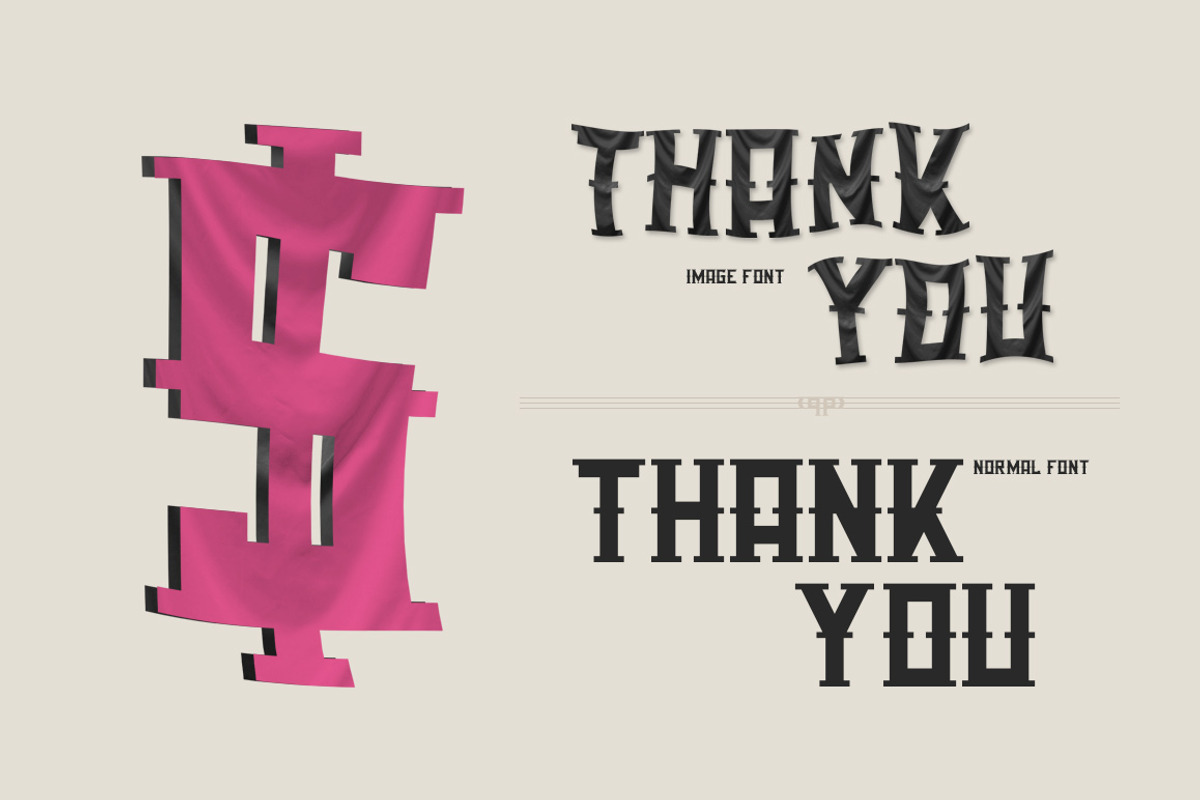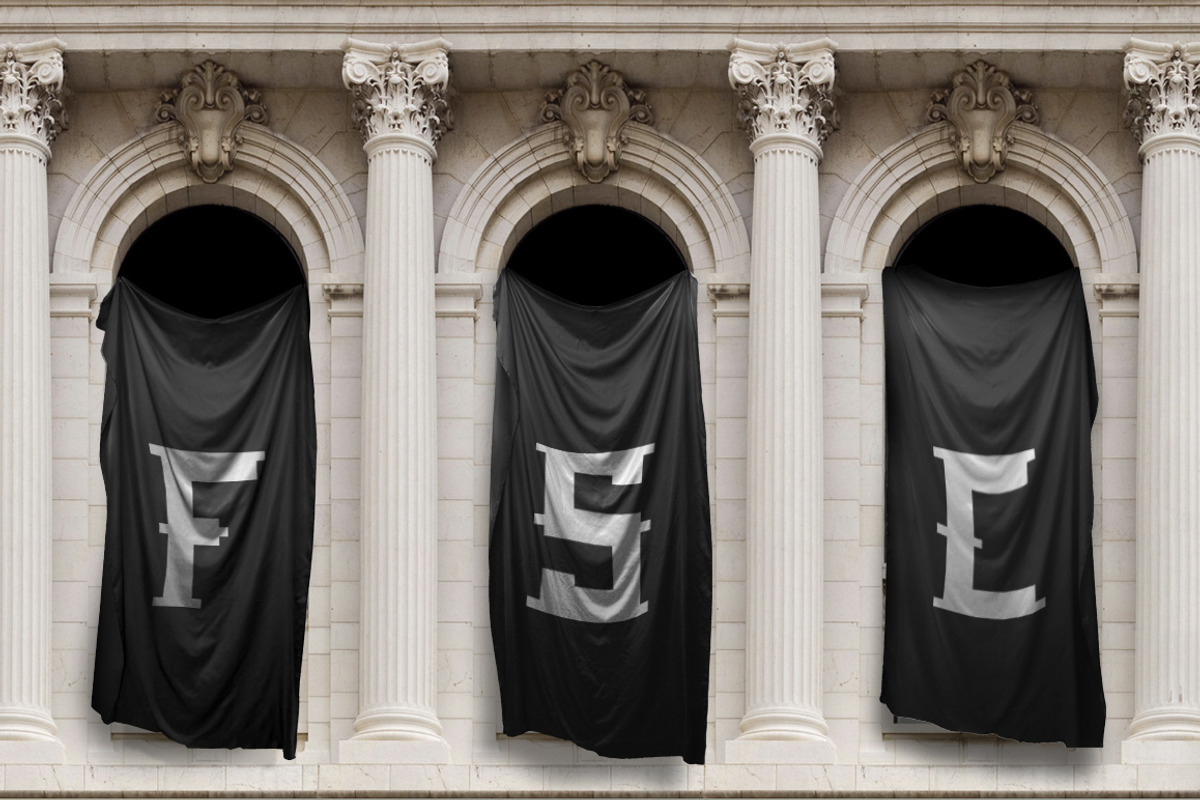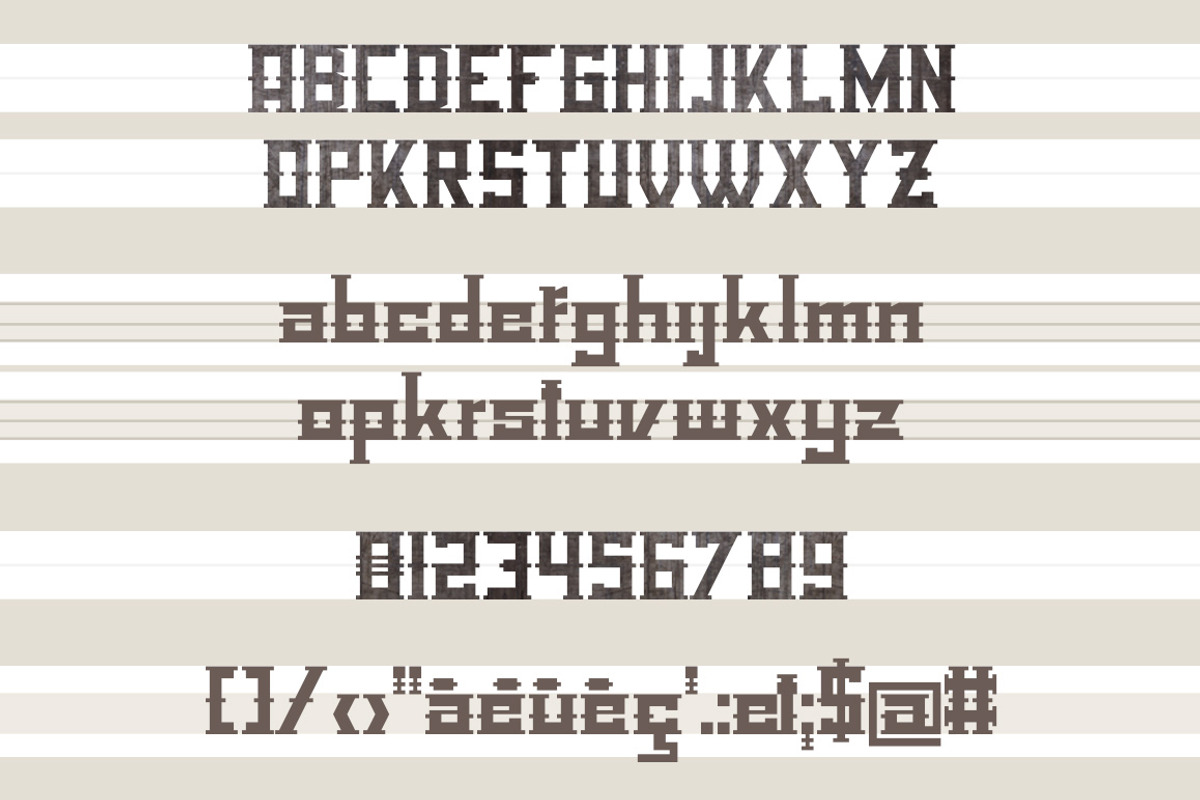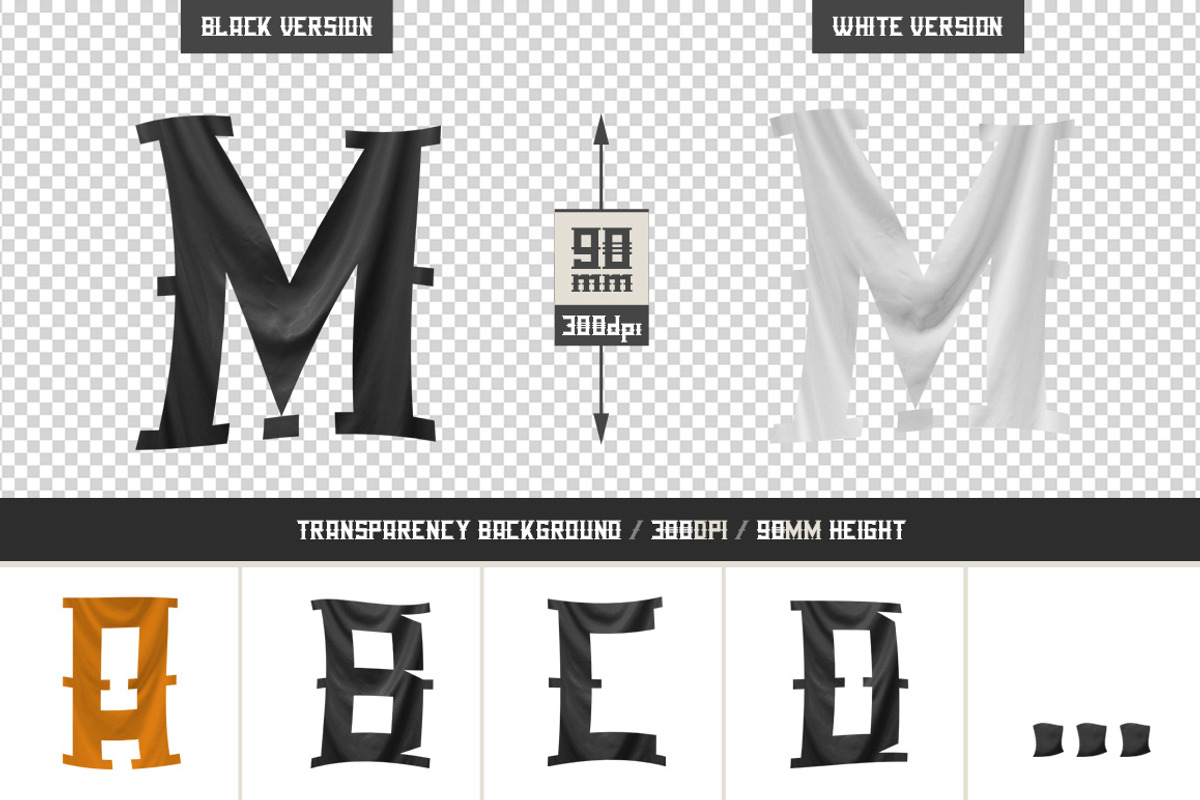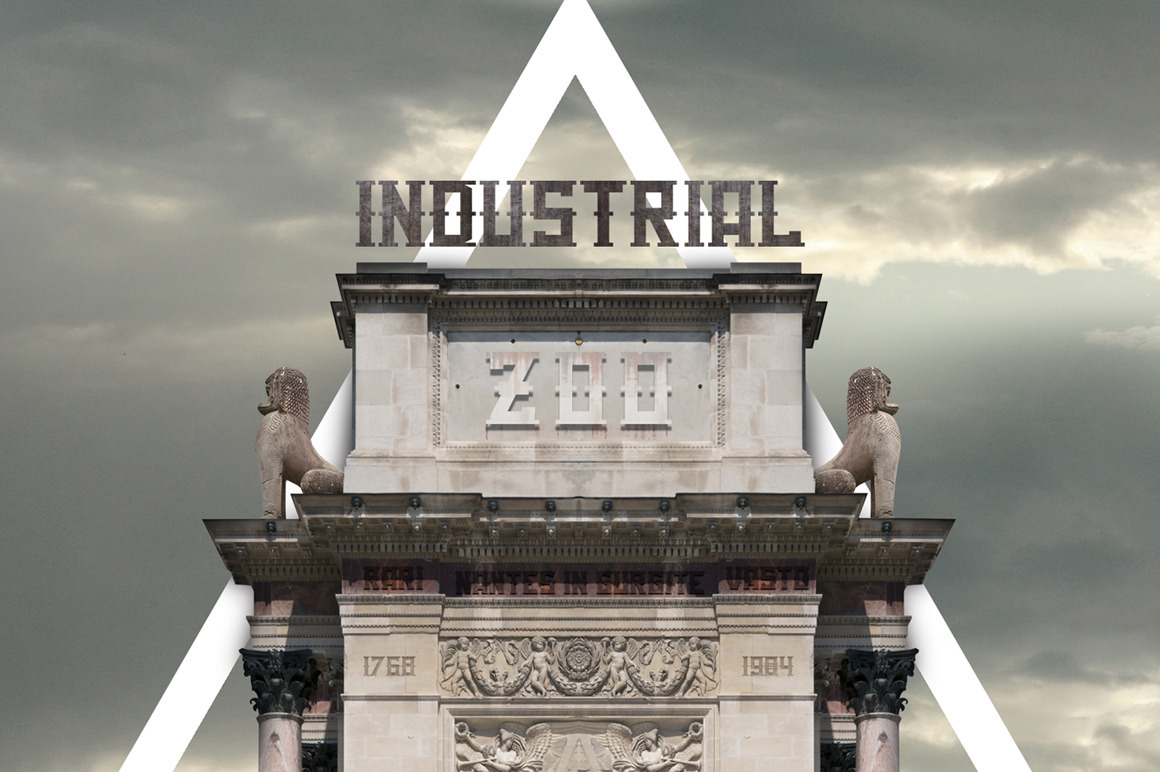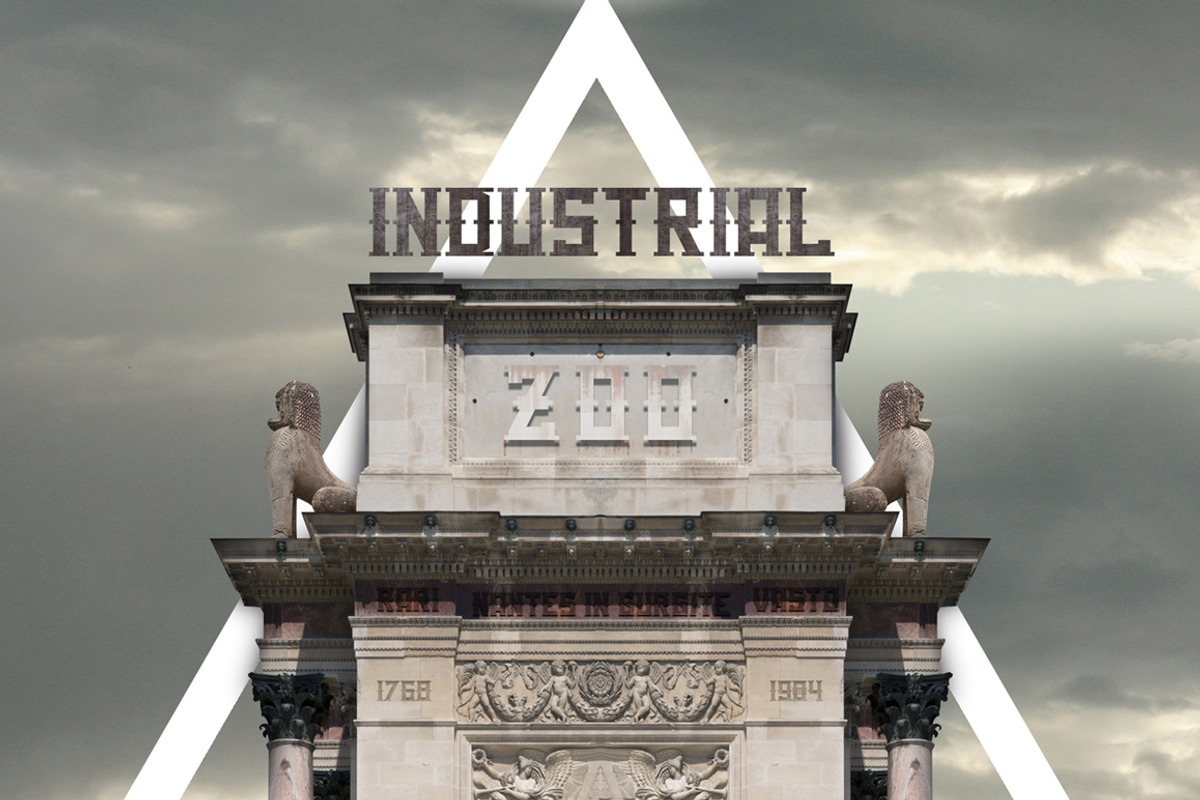
Industrial Zoo font and image pack.
industrial Zoo takes inspiration from the industrial typography before 1940. The "Industrial Font Pack" contains each letter separately on high resolution of 300 dpi and 90mm height. Available in two colors, white and black, you can easily modify the colors with photoshop or other graphic software.
Design by David Alexander Slaager